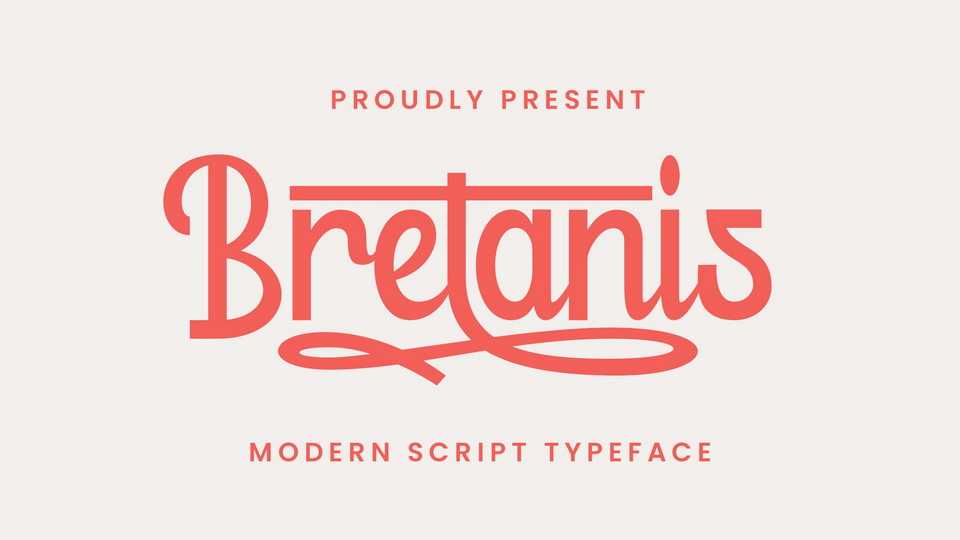
Download Bretanis font, a lovely and delicate script font that exudes elegance and class. This font was particularly crafted for those who need a beautiful and refreshing look to their designs.